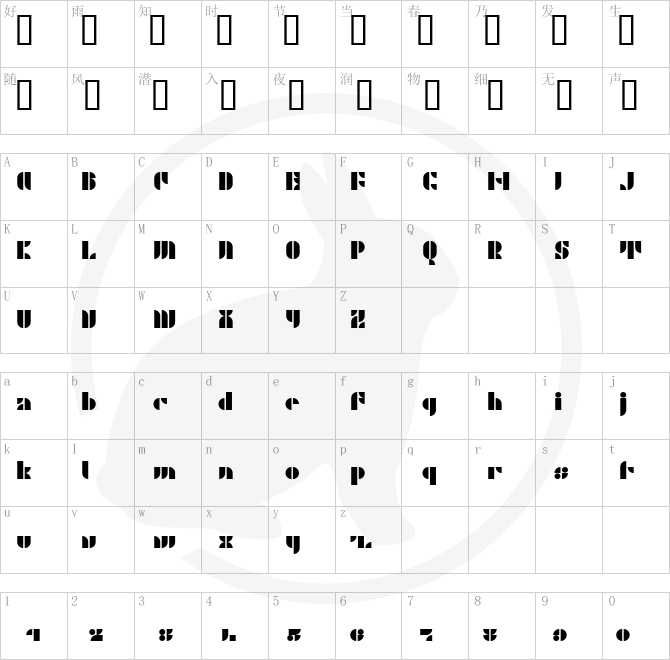
• Font Name:P22 Albers
• Subfamily:Two
• Full Name:P22 Albers Two
• Copyright:Created by P22 type foundry for The Solomon R. Guggenheim Foundation and The Josef and Anni Albers Foundation. 0997
P22-Albers-Two.ttf is a very beautiful artistic font, P22-Albers-Two.ttf is widely used in the design and printing of various books and pictures,P22-Albers-Two.ttf has a strong visual impact,P22-Albers-Two.ttf is a commonly used font in newspapers, magazines and books, and is used in posters, e-commerce Poster design, store design, logo design, font design and other fields.P22-Albers-Two.